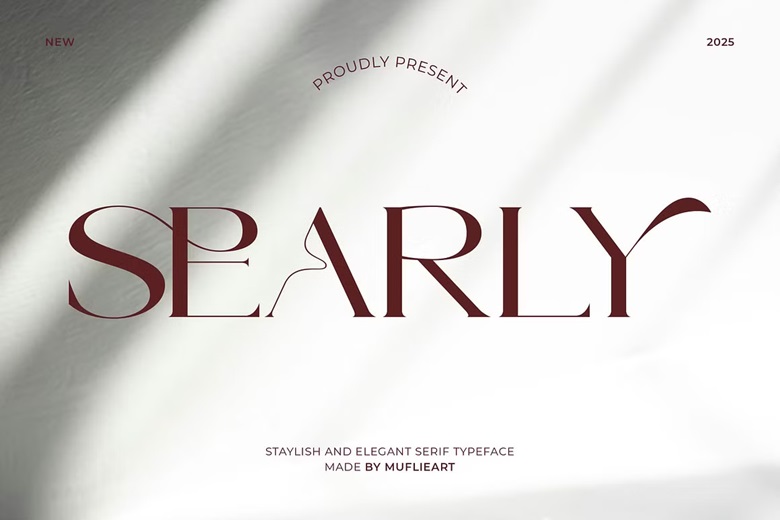
Searly Font
Searly –Staylish And Elegant Serif Typeface is the ideal font that one should consider when seeking the contemporary serif font bearing a beautiful and captivating effect. This font is fine-detailed and balanced in letterforms, which offers a professional but artistic appeal to a range of design requirements.
Searly Serif Font